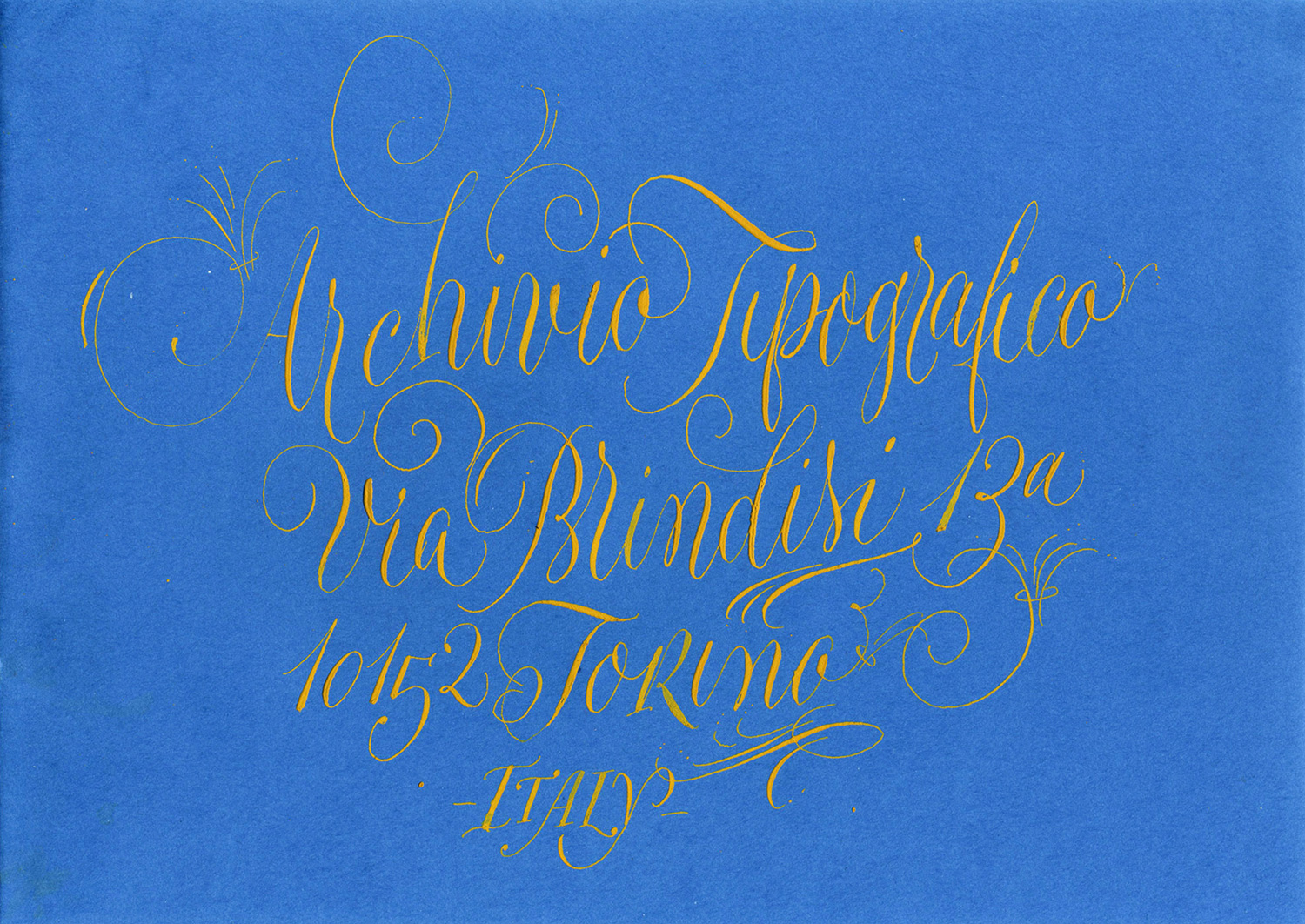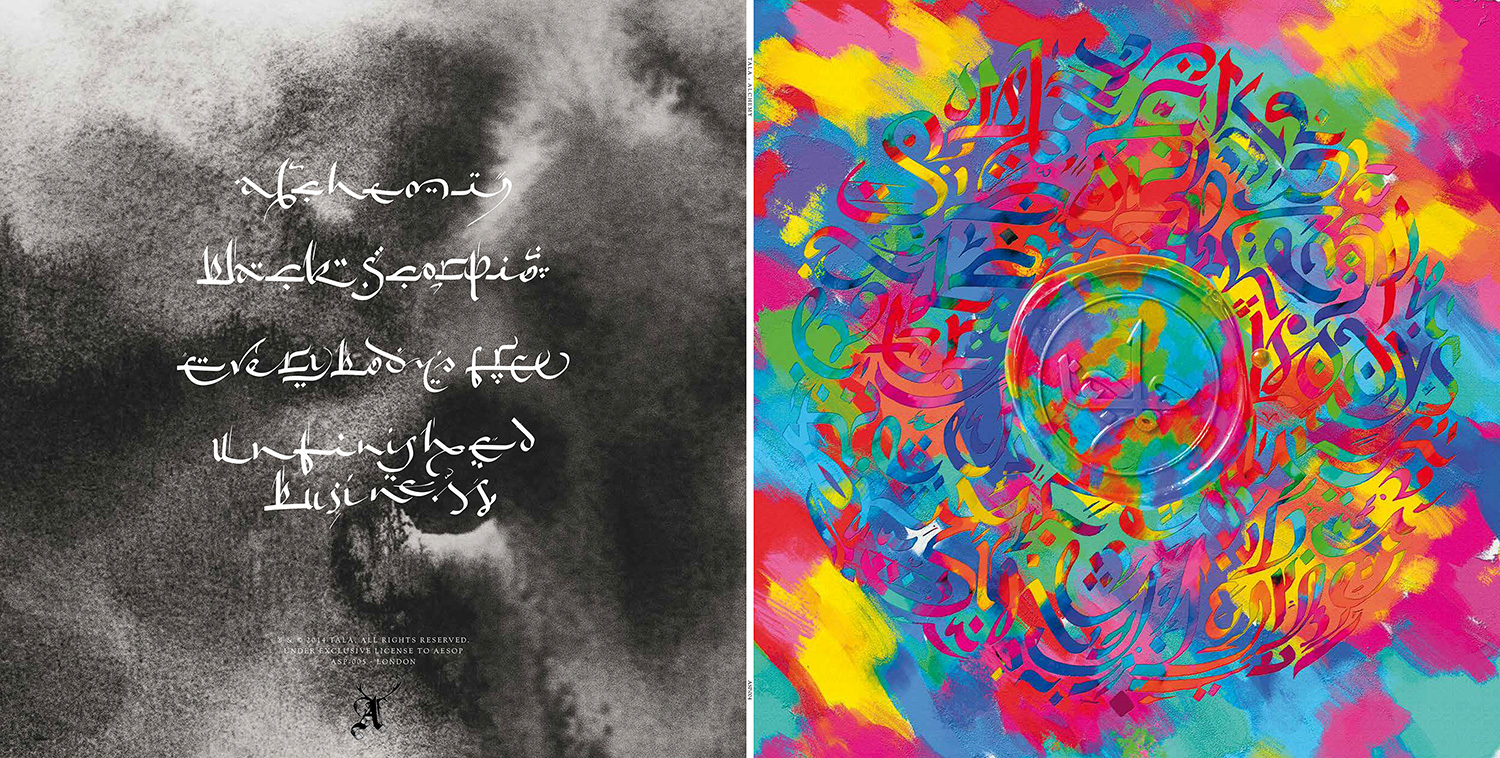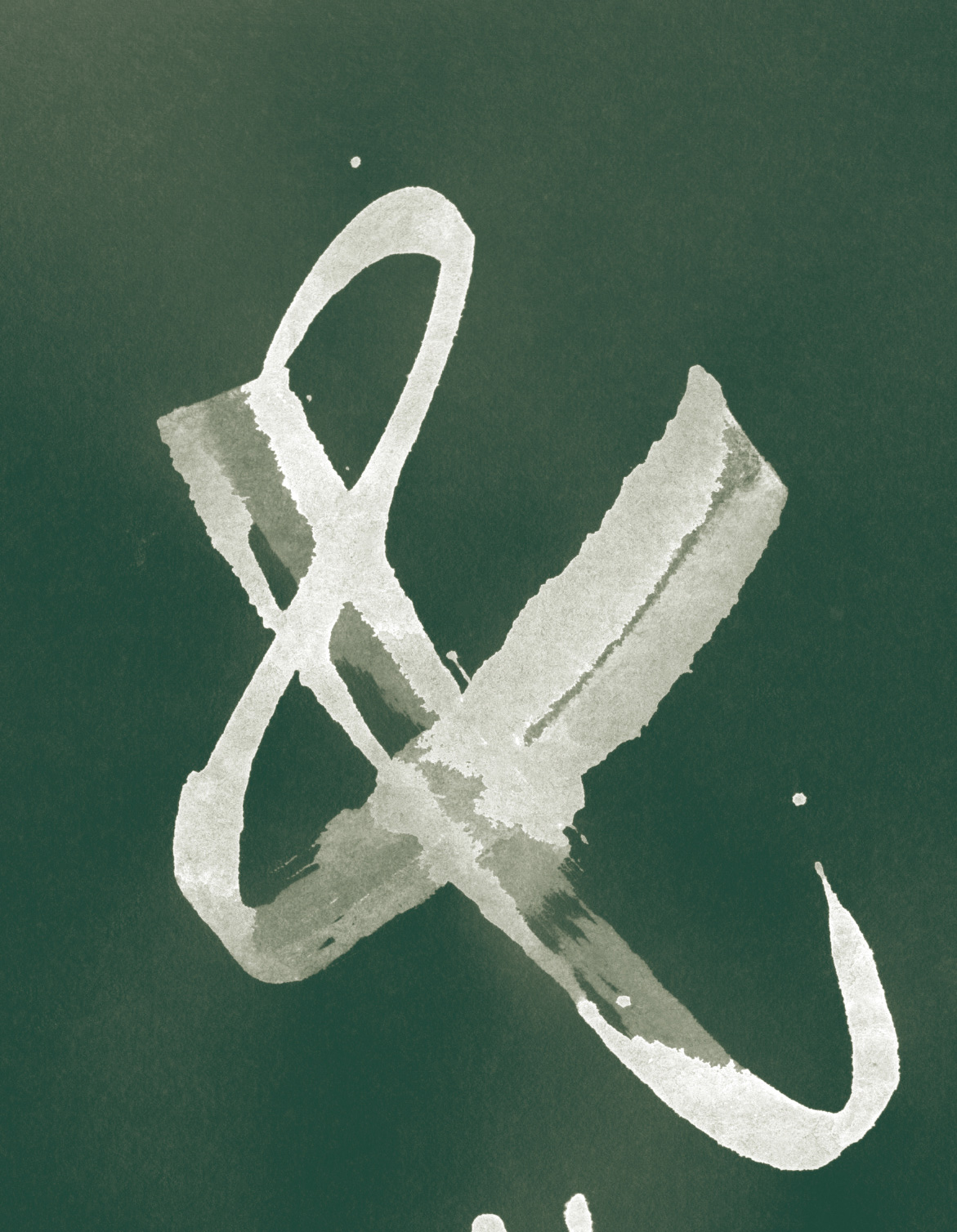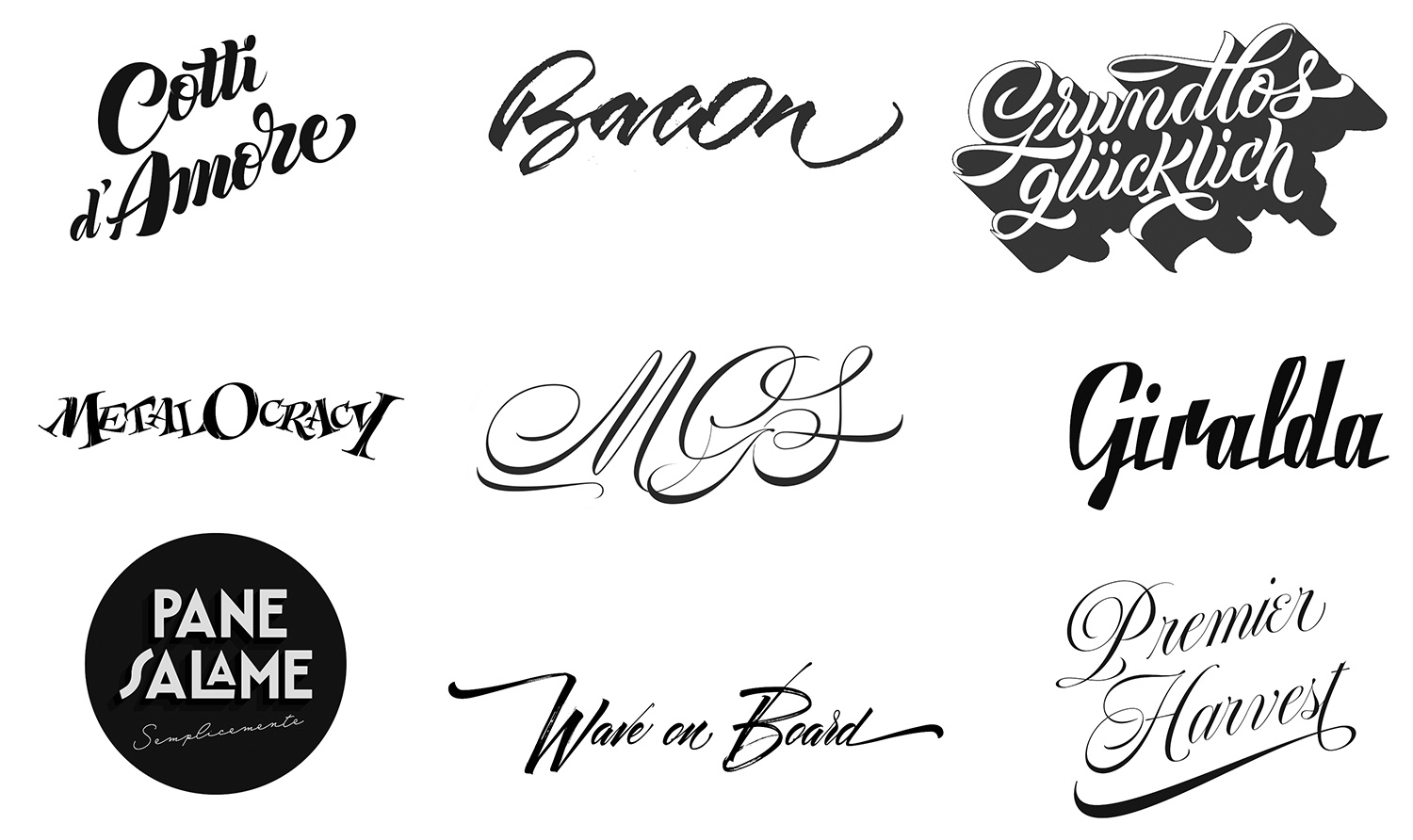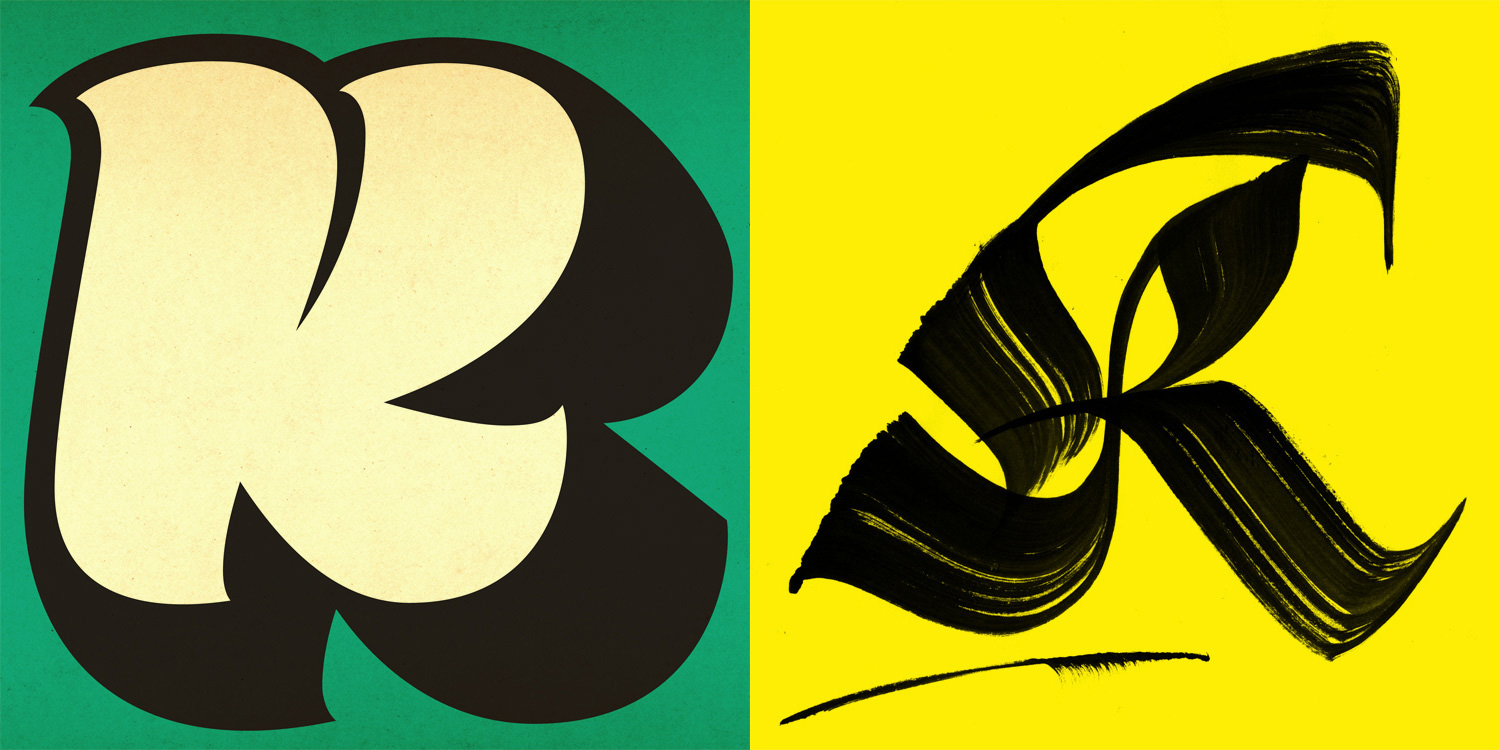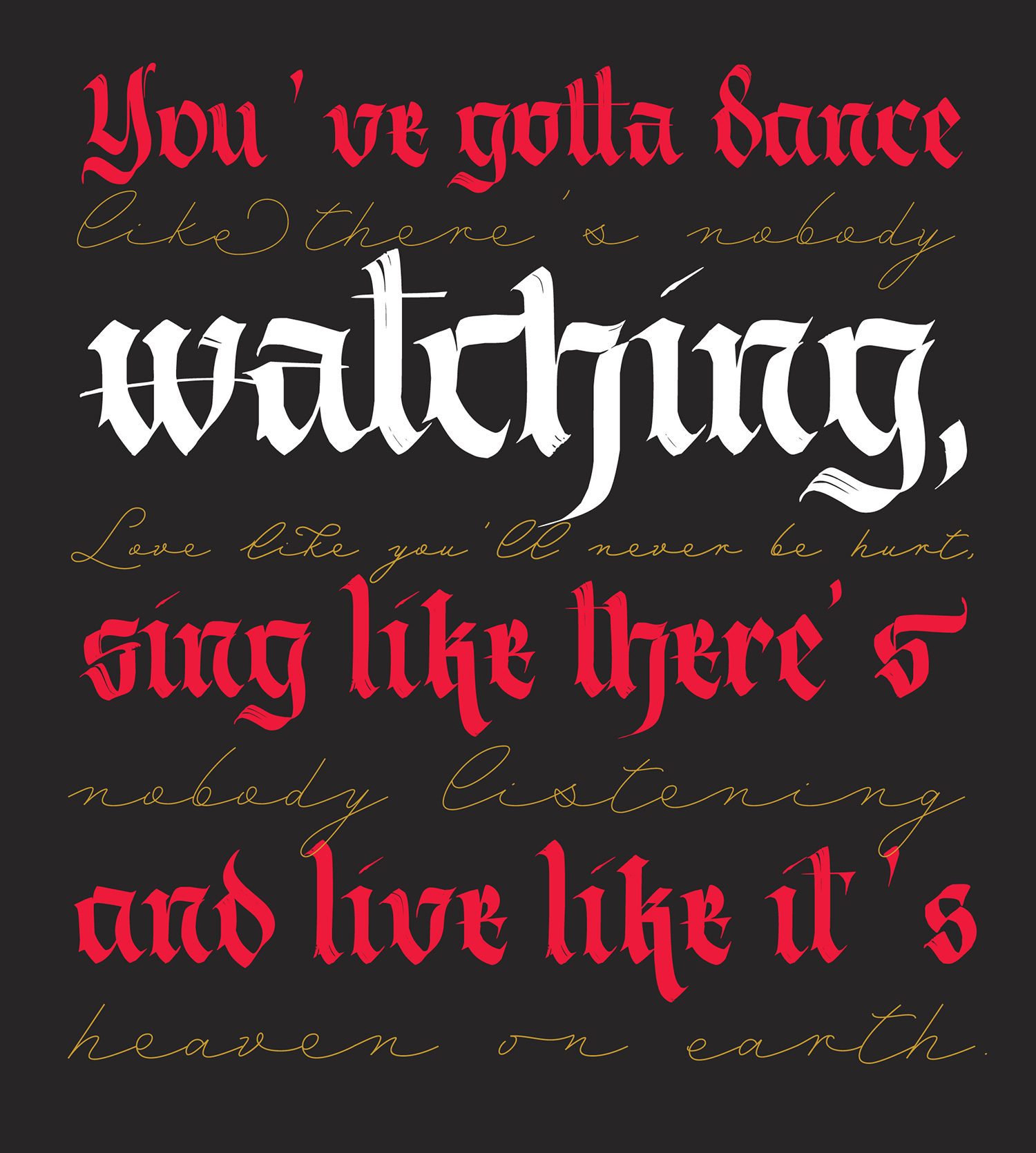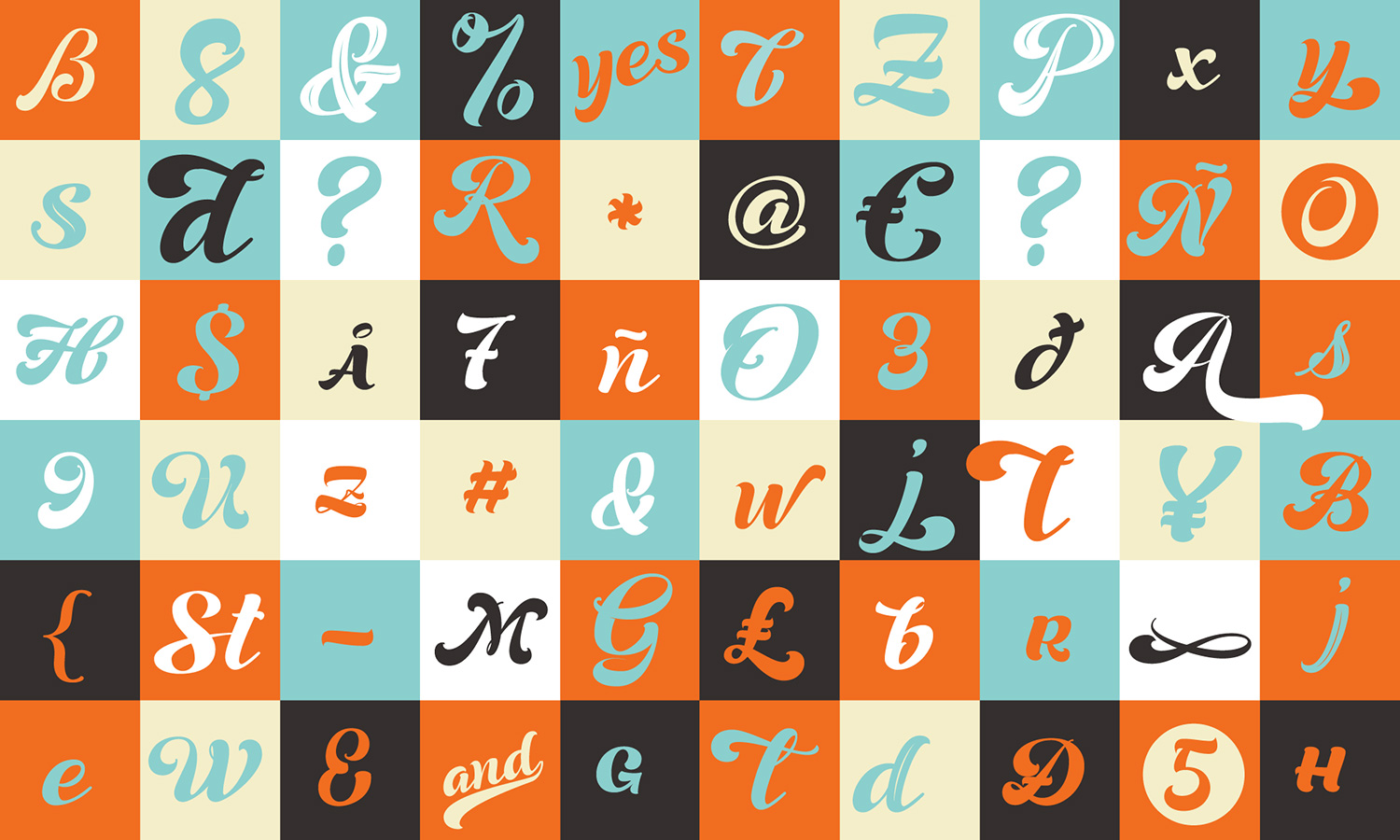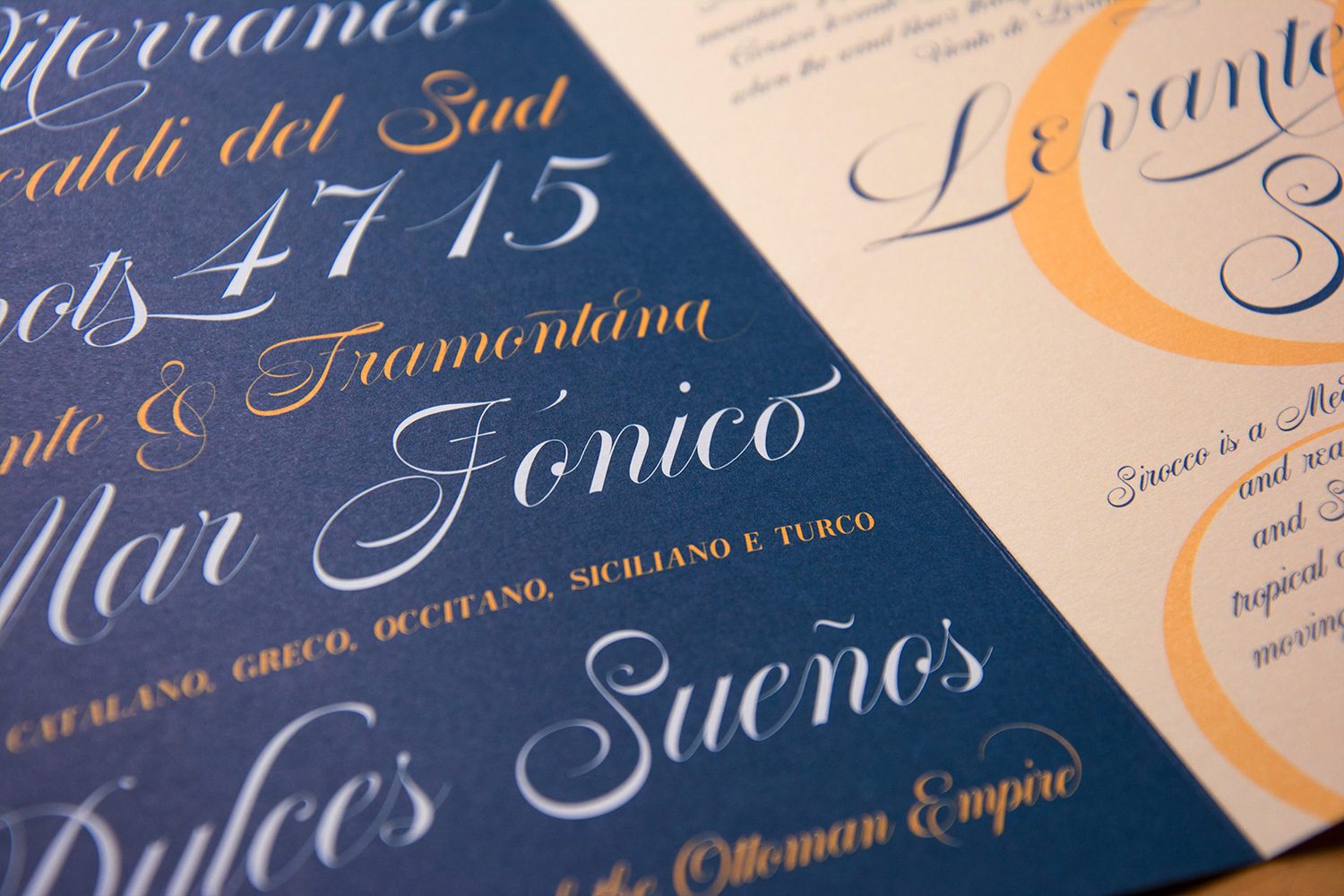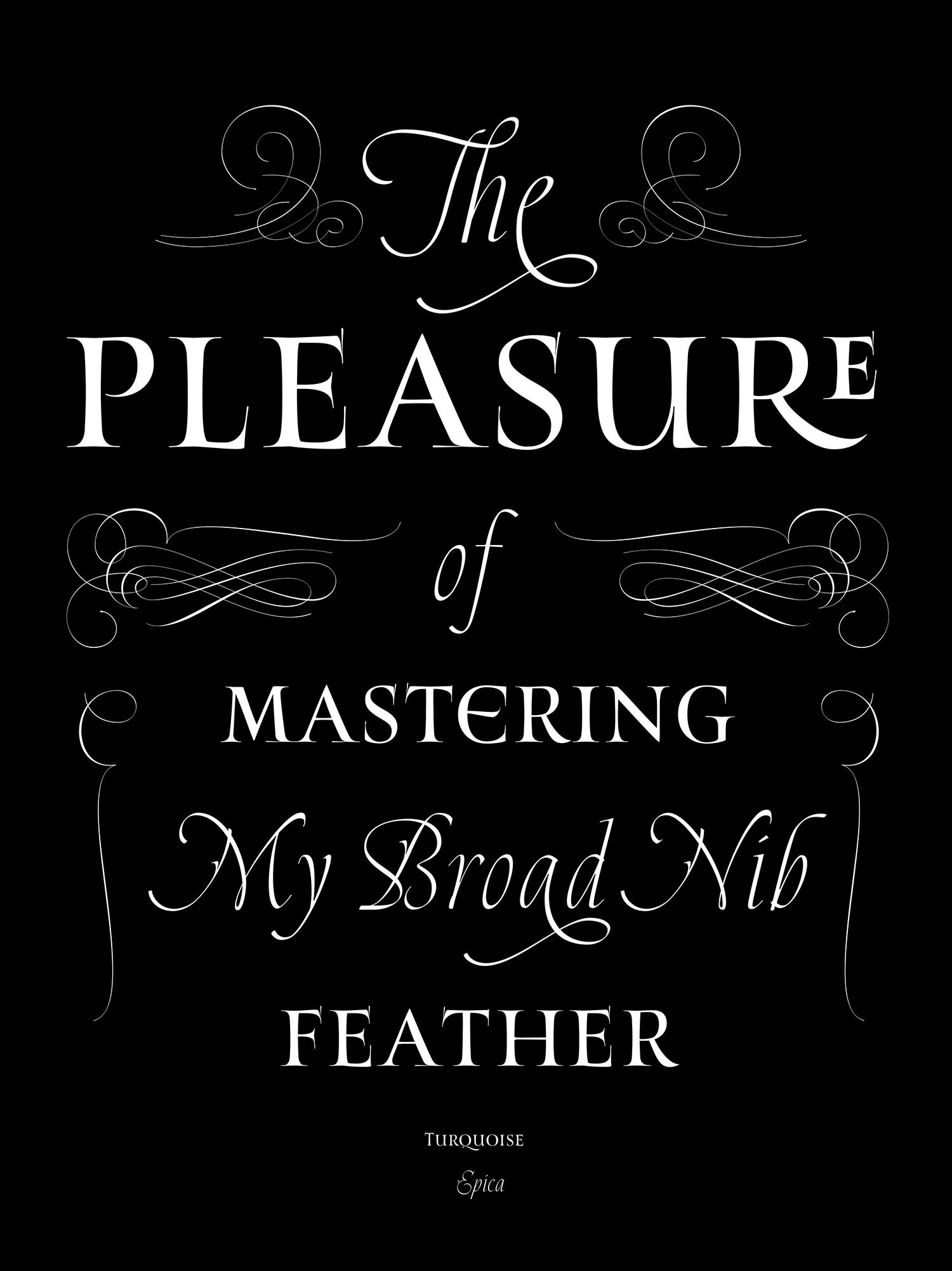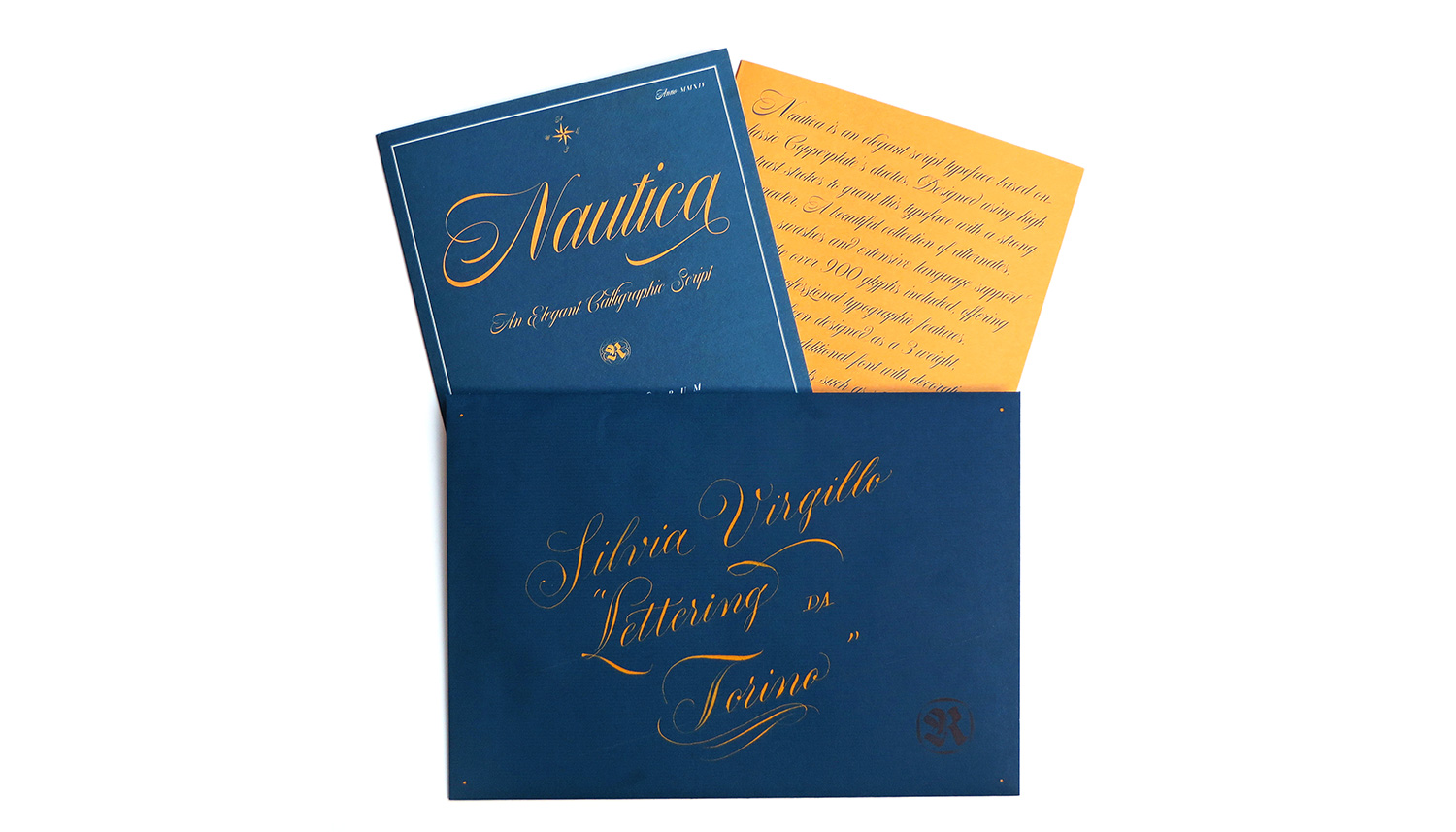
Giuseppe Salerno will explore the world of calligraphy to the end
Having been in the creative field for over 14 years, Giuseppe Salerno is an adventurer. Living globally literally (Salerno knows what if feels like waking up in Berlin, Madrid, Valencia, and Seattle, among others), he always stayed true to his craft. Through mixing his calligraphic skills with his type knowledge he has worked for numerous clients across the globe who value his signature art form. Since 2008 Giuseppe Salerno is in charge of Resistenza, the design studio he co-founded with Paco González. Their most distinguished style characteristics are brushy types, calligraphic strokes and originality in typefaces. Giuseppe uses calligraphy as a hand-drawn method for script typefaces. The creation of these one-of-a-kind typefaces add style and passion to their graphic design projects so we decided to ask him anything about him and his joyful typographic adventure.
“The art of writing entered my life very early, I was always fascinated by old manuscripts and the image of a beautiful antique desk, on it, feather and ink. It was just very attractive to me. I had the chance to study Cancelleresca when I was 15 very close to my hometown of Turin, Italy. We were 3 students, learning how to hold a Speedball broad nib pen, understanding how to make the ink flow and struggling with paper and letterforms. It was impressive watching our teacher writing with Italic, I always remember her smooth pen movements.”
“Calligraphy is not an art form until you spend more than 3 to 4 years on it, before that, it’s just experimenting with strokes using different tools. The knowledge of letterforms is fundamental if you want to achieve an advanced skill level.”
“Calligraphy is the mixture of all kinds of art. There is a lot going in on in this art form. There is math, geometry, spacing, expressionism, feelings, rules, composition, paper, dirtiness, mess and order.”
“Nowadays we are living a great Revival of Calligraphy. Social networks are spreading this art, workshops are always overbooked and so many new talented artists are coming up.”
“Calligraphy brings you this feeling of peace and calmness to your everyday life and it works very well for me when I want to escape from my digital routine.”
“It’s fun to experiment with calligraphy tools, building your own pen, trying to do it with wooden sticks, cans, leaves, anything you may think really and you can also play around with a variety of inks.”
Logo for Tala and Vinyl cover in collaboration with Studio Moross
Copperplate, “I like to share my sketches on Instagram”, Ampersand
“My teacher was mastering Copperplate script extremely well, and I was impressed. I was completely fascinated! During that I was going to second hand markets in Turin often (there is one called Balôn which is pretty famous) and I liked to buy old postcards written by normal everyday people. Also, I was very attracted to old stamps, I actually collected them for a while. There was no email back then, so sending postcards and letters to some of my friends in the south of Italy was the best way to practice my calligraphy.”
“I don’t have any special piece of work that I consider my favorite, but I can say that lately my passion is focused on old maps from the 16-17th century which show the development of Europe, the Middle East, Persia, Africa and the Mediterranean growth. Reading all these lands name in Latin fascinates me even more. Cartography contains everything: calligraphy, science & aesthetics. This is what I’m studying right now, after all I do consider myself a traveler. Discovering new places and getting to know new cultures is where I get inspired most. Maps where the use of Cancelleresca is dominant are of maximum splendor. Capital letters are connected by swashes that join the whole word in one beautiful nature-inspired piece.”
“Do you know who Abraham Ortelius is? He’s a kick-ass Flemish cartographer who dedicates his work to designing beautiful and rich calligraphic maps. Sometimes I wonder, if calligraphy and broad nibs are so trendy right now, why isn’t the same happening with sixteenth century ruffs? Should we all wear one and put a selfie on our instagram to make it popular?”
“This map is my favorite piece of art at the moment. Art full of details with a baroque aesthetic drives me wild, it’s beautiful and inspiring.”
Turcici Imperii descriptio by Ortelius Abraham
“Hand made calligraphy and digitized work have a lot in common lately as more graphic designers, tattoo and graffiti artists are getting closer to the roots of the art of writing and this connection happened not ’cause of books, old maps or rich manuscripts; this is happening from the pleasure we get of sharing our knowledge on social networks. We are living a real revival of hand-made calligraphy & lettering art - I’ve been discussing this with other designers as well - and I don’t think it’s just a trend. Hand made things make us feel more in touch with ourselves and that’s a good thing. Lately, many typefaces are focused on transmitting this human touch.”
“Resistenza is focused on creating a catalogue of typefaces based on our calligraphic experiments, adding to our culture of typography including opentype features that help increase the customisation of typographic sets. Doing calligraphy is a surprising process, then other aspects come along like creating balance with the compositions, adjusting and embellishing some letterforms.”
“We have several typefaces based on real calligraphy, for example, one of our bestsellers, Berliner Fraktur was designed in Berlin, during our project Lettering vs Calligraphy with the amazing Martina Flor. And Superb, a new typeface based on real brush pen script, is influenced by lettering shapes from the sixties and seventies, this typeface has a lot more to show when you access its OpenType features, includes negative figures and a full alphabet set with cut out shapes. The possibilities with OpenType features are endless, so we try to make them as original as possible to always be adding something new and different to the mix.”
Super duper Extra K, Martina Flor and Giuseppe Salerno
Berliner Fraktur and Mina
Superb - a new brushy typeface
“After a lot of pointed nib calligraphy practice I was able to digitize all the pieces and to develop Nautica which is the most advanced script that I developed. Lately we’ve been working on the development of two new typefaces, one is Turquoise and the other one is Epica, both a re-broad nib based and the second one born during the Tipobrda Winter Workshop. Also, I’m very focused on Italic hand right now.”
Epica & Turquoise, work in progress. Poster realised at the 27th Tipobrda Workshop
“Designing typefaces or feeling the need to dedicate yourself into calligraphy, is like running a marathon. You better be very well prepared for anything that comes along.”